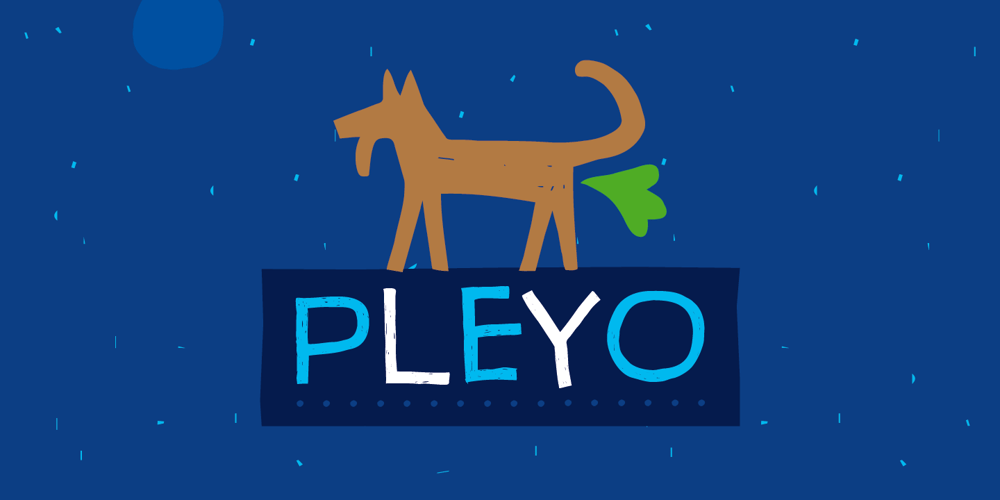
Pleyo Font Family was designed by Dusan Jelesijevic and published by Tour De Force. Pleyo contains 1 styles and family package options. Pleyo is the player for all situations – packages, labels, posters, titles, logos etc.